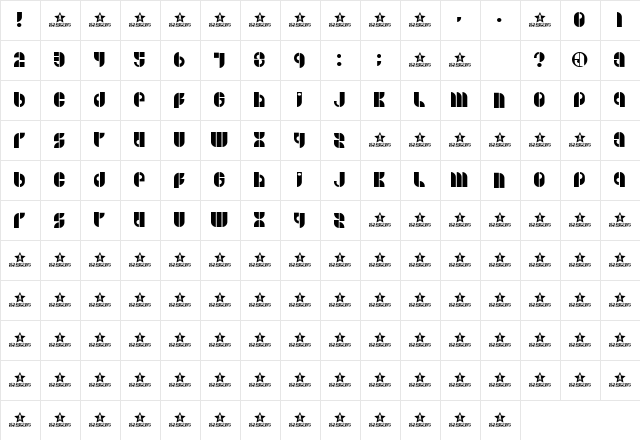
B SIDE BY BILLY ARGEL BLOCK
| Foundry | BILLY ARGEL |
| Designer | Billy Argel |
Design Context for B SIDE BY BILLY ARGEL Typeface
B SIDE BY BILLY ARGEL is a composed and adaptable typeface that performs quietly and consistently across a wide range of design contexts.